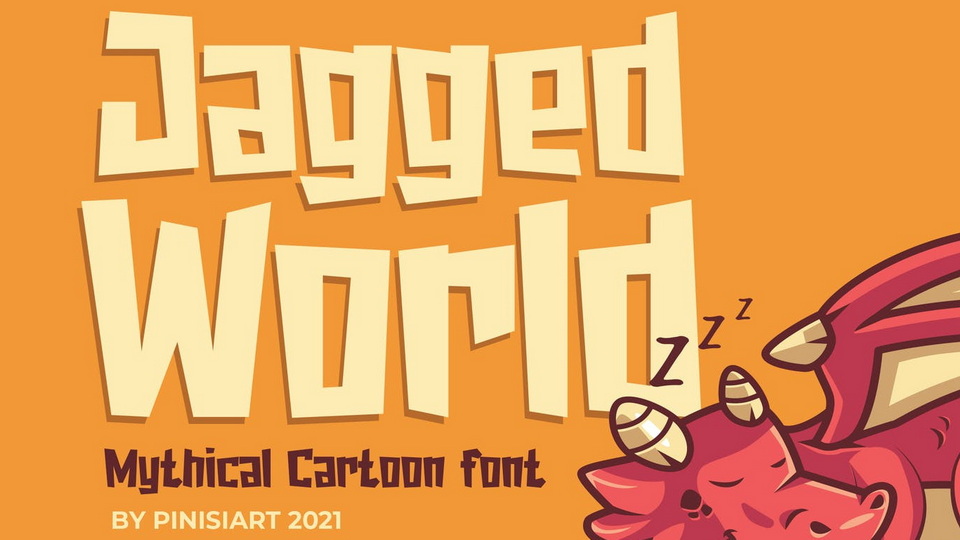
Download Jagged World font, a mythical cartoon font. Dragon, Fairy, and Mythical creatures are always mesmerizing to be seen, the world looks so magical back then.